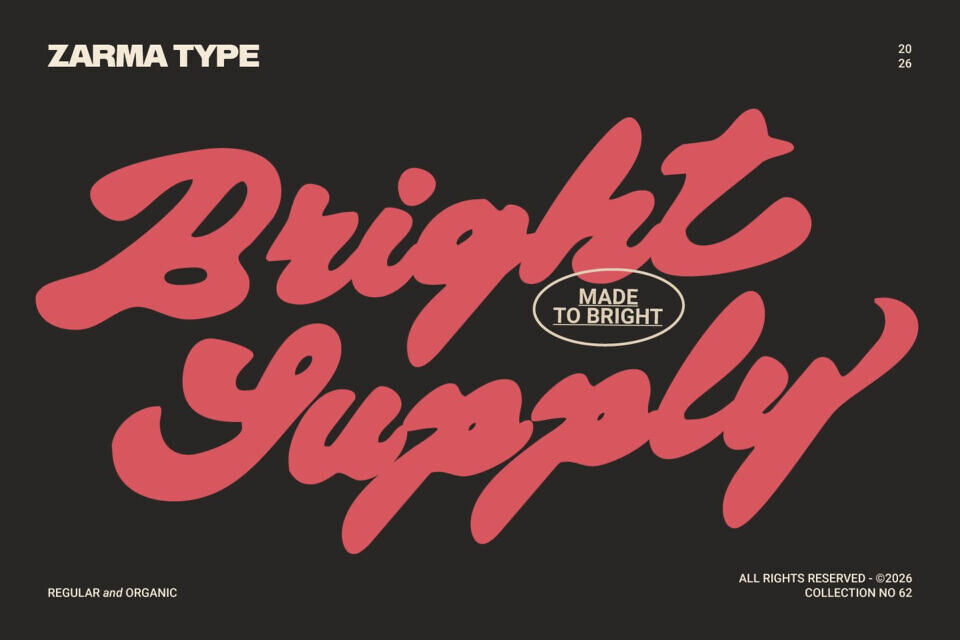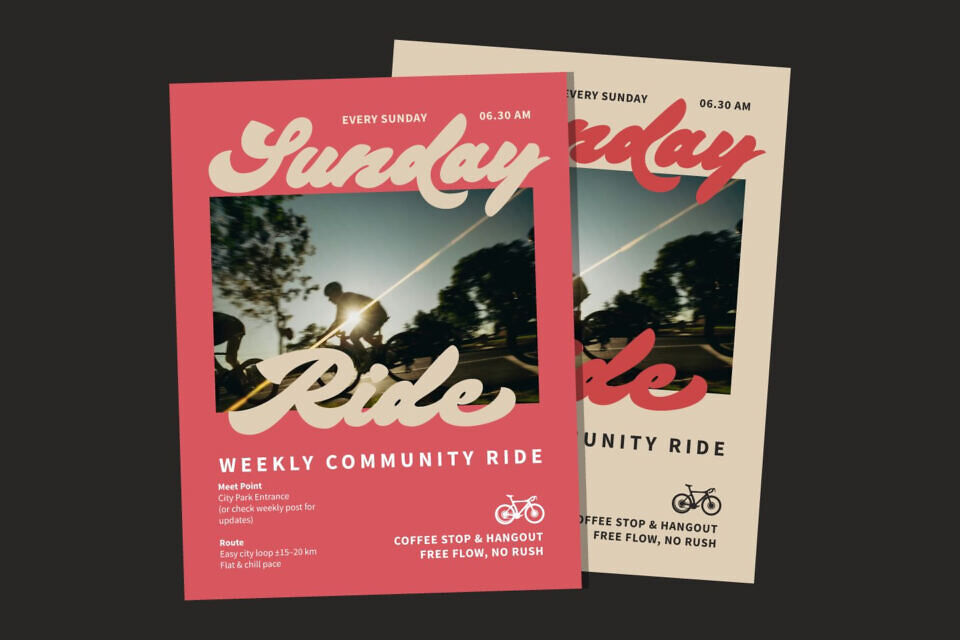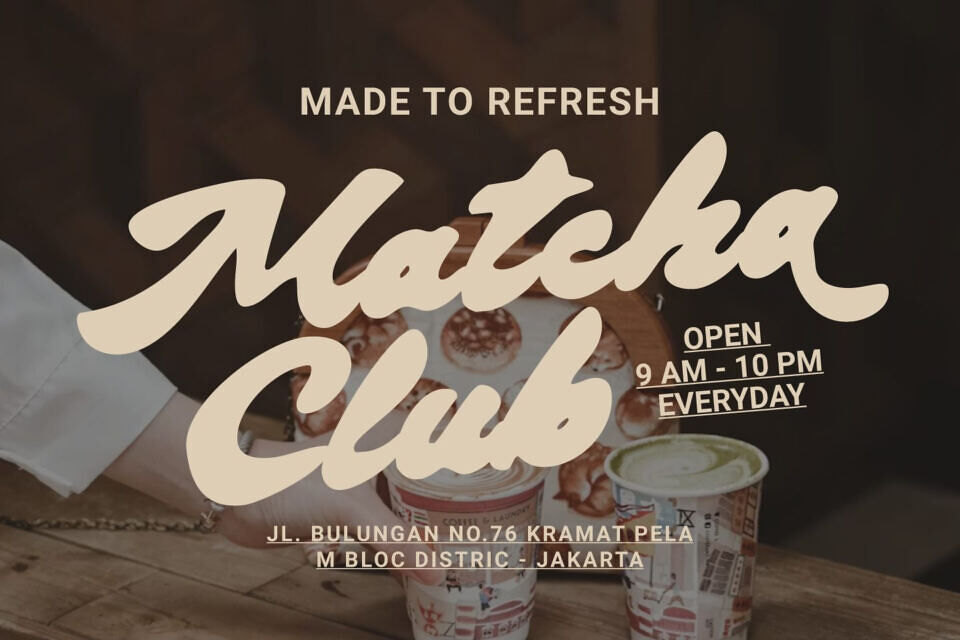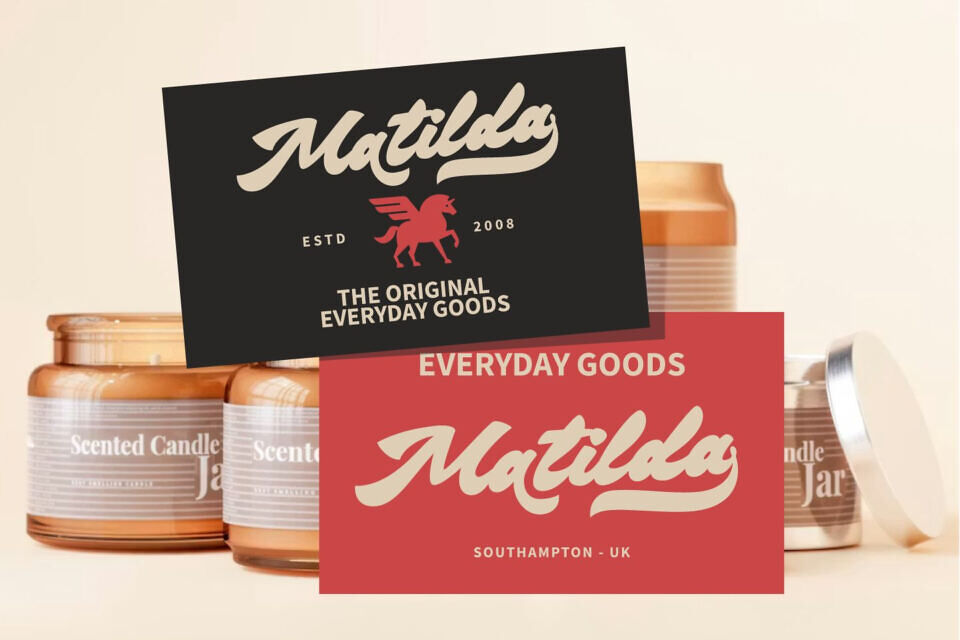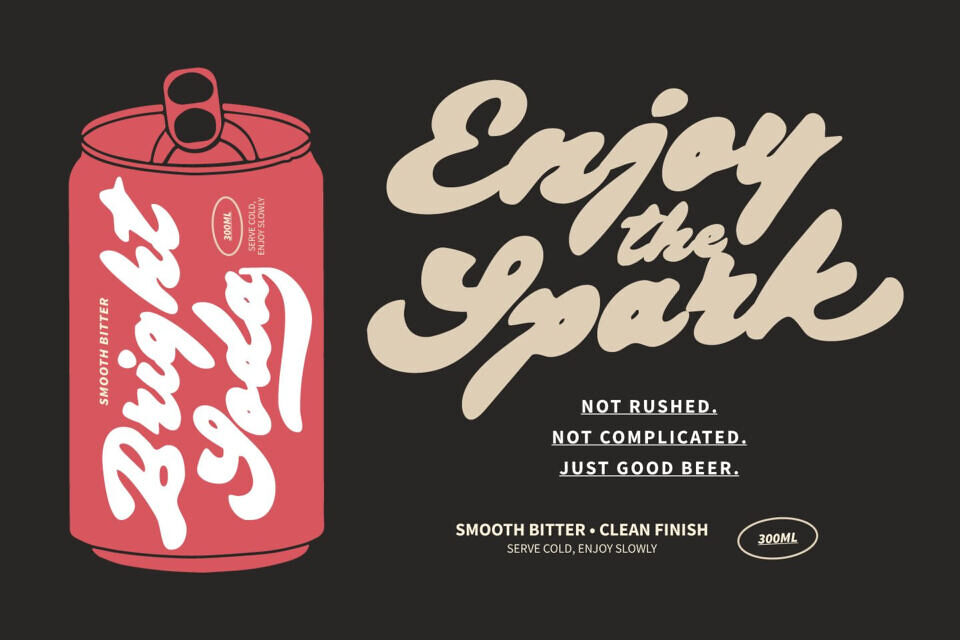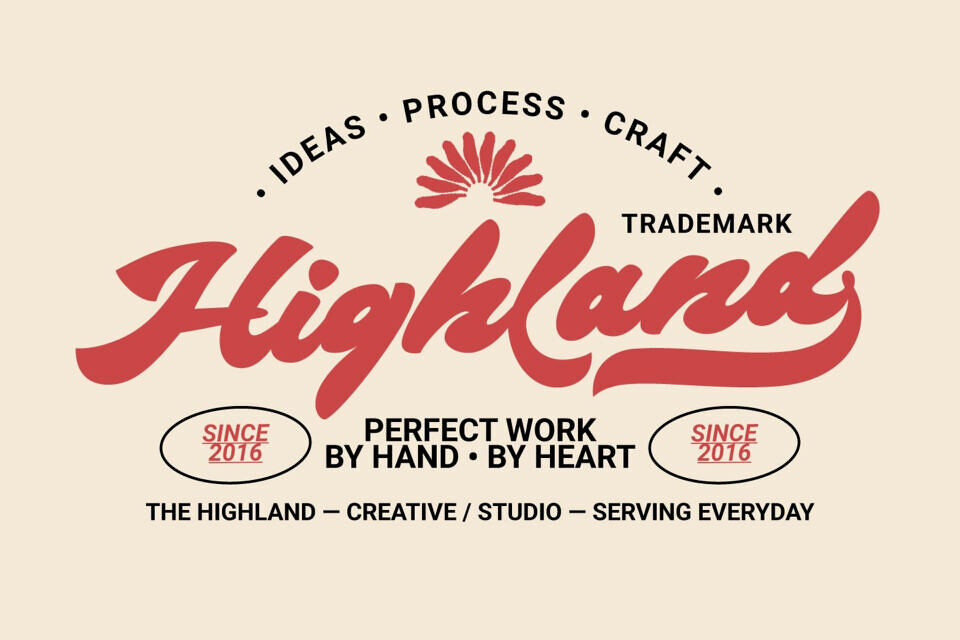
Bright Supply Font
Bright Supply is a bold script font made to bring warmth, confidence, and handcrafted charm into every word. Its thick flowing strokes feel smooth and substantial, while the rounded rhythm keeps each headline lively and easy to notice.
The regular style looks polished and clean, perfect for logos, posters, and product labels. Meanwhile, the organic style adds a more natural texture, giving your work a softer, more expressive feel that suits artisanal branding and everyday packaging.